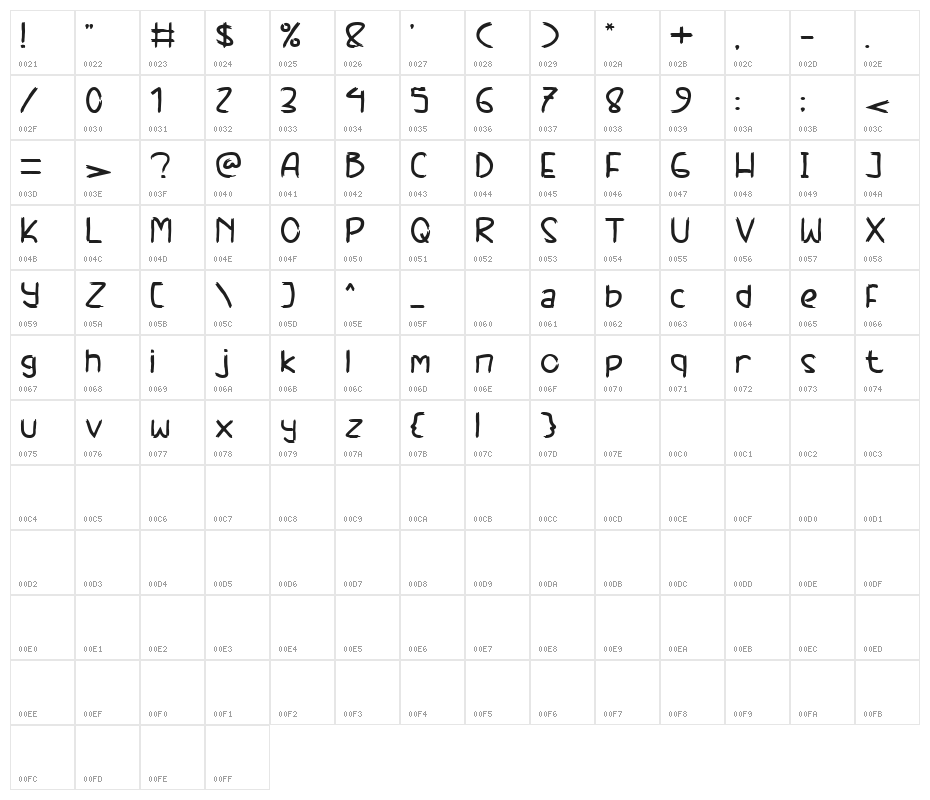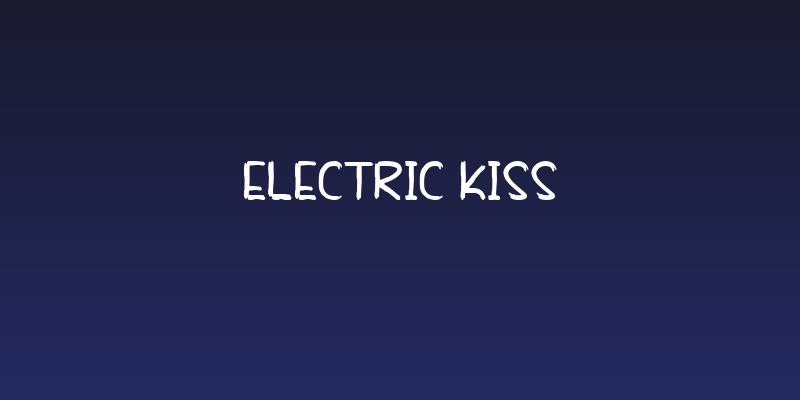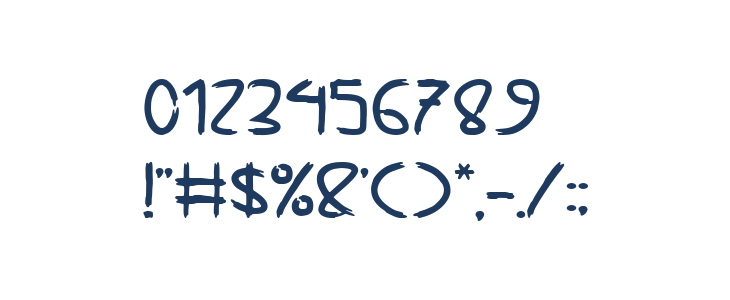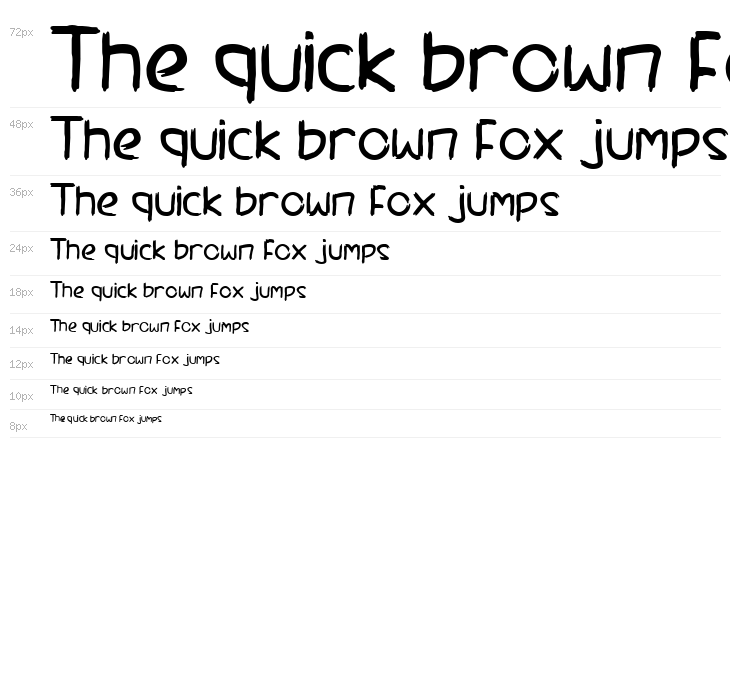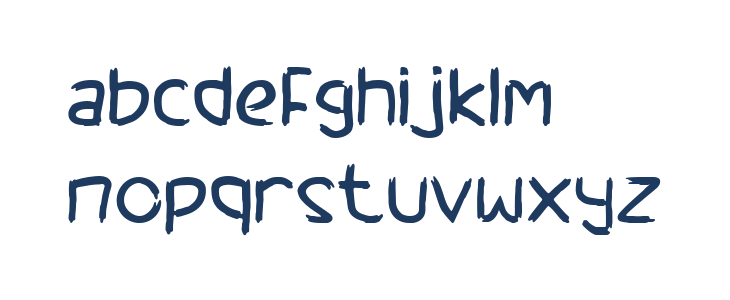
Electric Kiss Font
Electric Kiss Description
This font features a bold and energetic handwritten style, characterized by its thick, uneven strokes and playful curves. Each character exhibits a dynamic and slightly irregular form, giving it a lively and informal appearance. The letters are closely spaced, enhancing the font's compact and cohesive look. The numbers and special characters maintain the same energetic style, making the font versatile for various creative applications. Its unique and expressive design makes it stand out, perfect for projects that require a personal and artistic touch.
| Proposed Projects | Ideal for posters, album covers, branding, and creative social media graphics. |